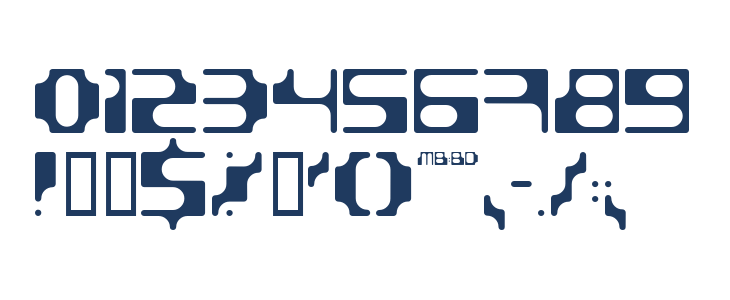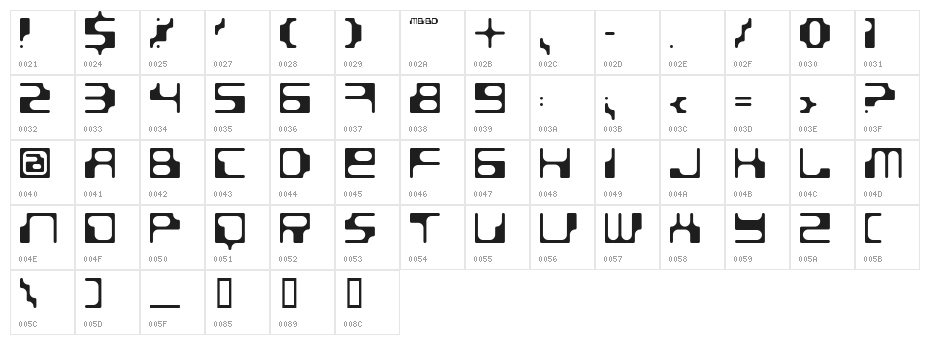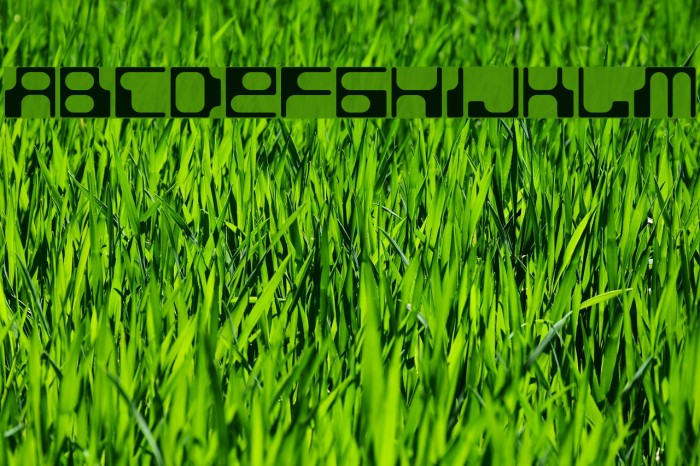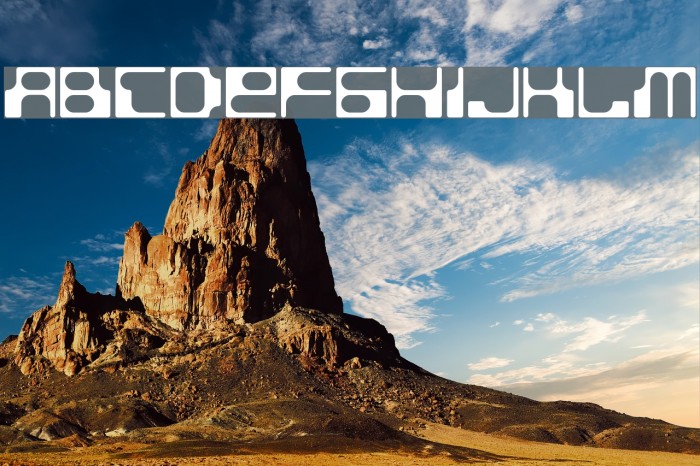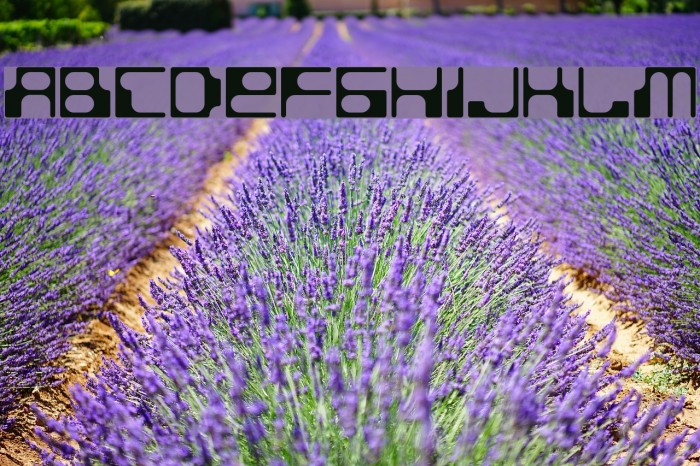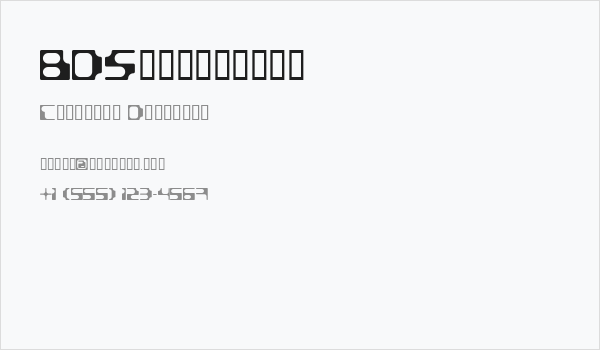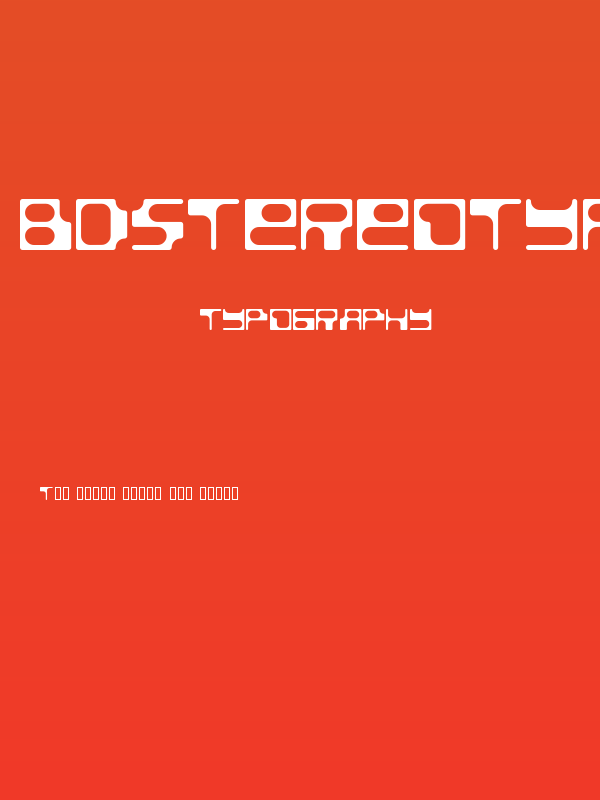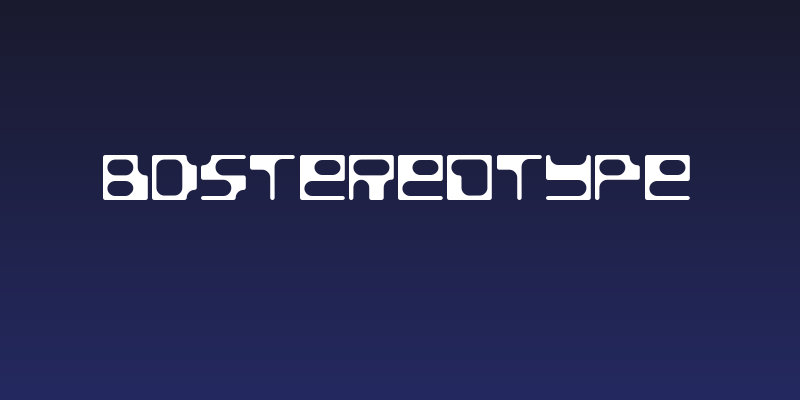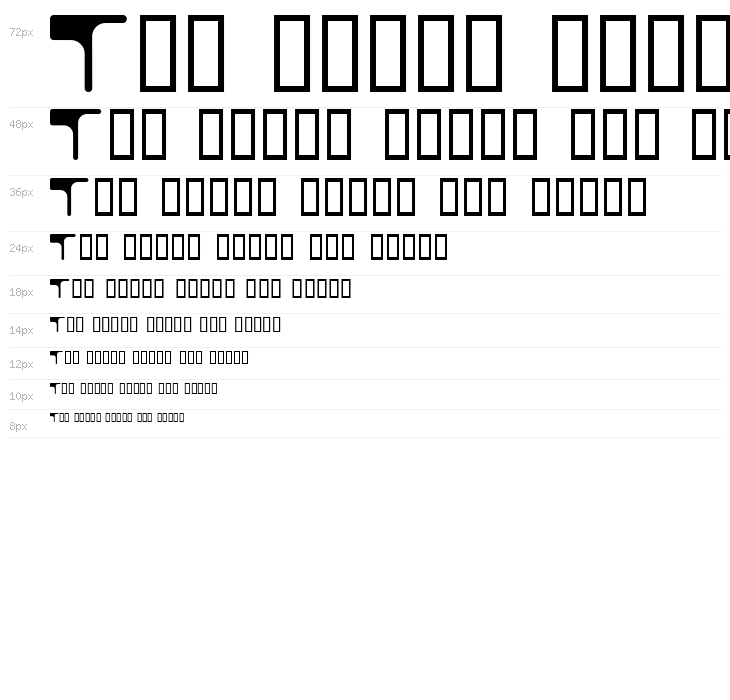
BDStereotype Font
BDStereotype Description
This font features a bold, futuristic style with a unique geometric design. The characters are constructed with thick, block-like shapes, incorporating both rounded and angular elements. The uppercase letters have a strong presence, with consistent height and width, while the lowercase letters maintain a similar style but with a slightly more compact form. The numbers are designed to match the boldness of the letters, ensuring a cohesive look across all characters. Special characters are included, each maintaining the font's distinct geometric style. This font is ideal for projects that require a modern and eye-catching aesthetic.
| Proposed Projects | Ideal for sci-fi themed designs, technology branding, video game titles, and modern posters. |